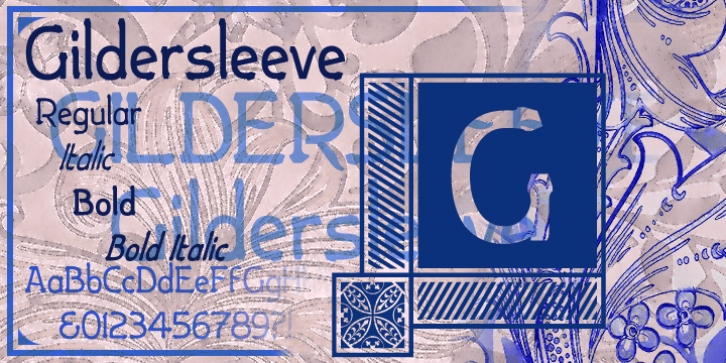
Gildersleeve is a monograms and historical font family. This typeface has seven styles and was published by Greater Albion Typefounders.
Gildersleeve is a new design in the spirit of the Arts and Crafts movement of the 1920’s. Think of a hand-cut Roman display face, with loving care lavished over each serif and letterform. Gildersleeve is offers in the classic combination of a regular face, a bold face, an italic and an italic bold as well as three sets of decorative initials. Any of them are idea for poster or cover work, as well as for chapter and section headings in a longer document, in combination wit a text face such as Vertrina or Clementhorpe text.
Gildersleeve Regular·
Gildersleeve Italic·
Gildersleeve Bold·
Gildersleeve Bold Italic·
Gildersleeve Initials Bold·
Gildersleeve Initials No2 Bold·